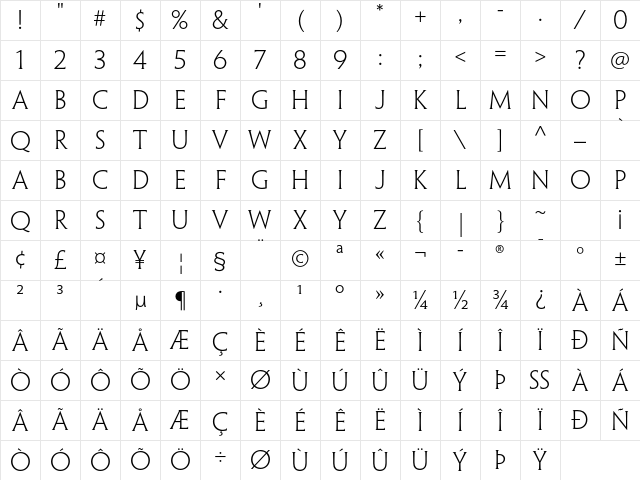
Penumbra HalfSerif Std Light Free Font
Penumbra HalfSerif Std Light
Designer: Lance Hidy
Design Context for Penumbra HalfSerif Std
Penumbra HalfSerif Std carries the refined structure of traditional serif typography, with bracketed terminals and considered proportions that communicate credibility and craft. Its slender proportions lend an understated elegance to any composition.
Pro Tip: Use Penumbra HalfSerif Std with generous line-spacing for the most refined reading experience - its light weight benefits from room between lines.